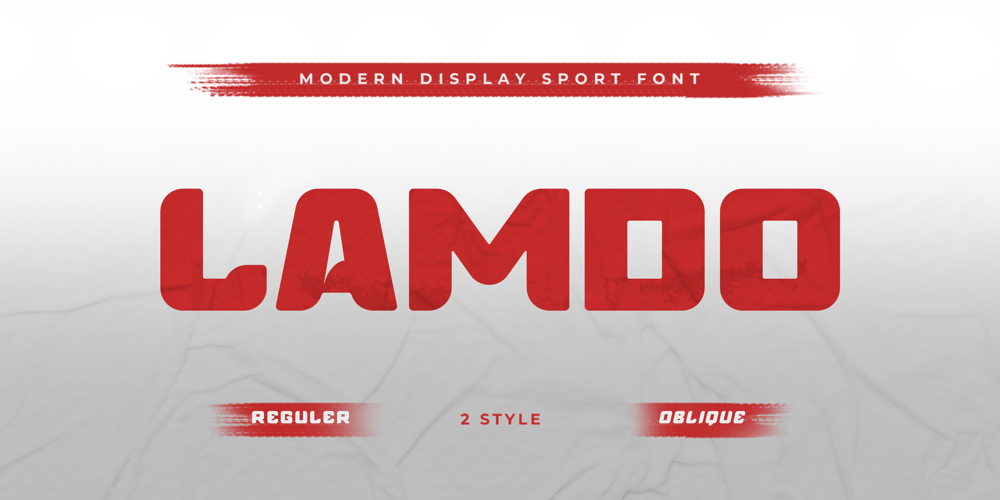
Lamdo Font Family was designed by Achmad Aprilia Pratama and published by Aiquitype. Lamdo contains 2 styles and family package options. Introducing,Lamdo – Modern Display Sport Font, a dynamic typeface designed to elevate your headlines and capture the essence of athleticism and vigor. Crafted with precision and attention to detail, Lamdo exudes a contemporary aesthetic, perfect for making a bold statement in the world of sports. This font commands attention and delivers a powerful visual impact, making it ideal for headlines, banners, posters, and other promotional materials related to the realm of sports.Will you get :1. Allcaps Characters2. Ready A-Z Characters, Numerals, and Punctuation3. Multilingual Support4. It’s very easy to access OpenType Features in various software such as : Adobe InDesign, Adobe Illustrator, Adobe Photoshop, Microsoft Word, and several other graphic design applications provide easy access to OpenType features.Let Lamdo be your go to font for capturing the spirit of competition and inspiring greatness.